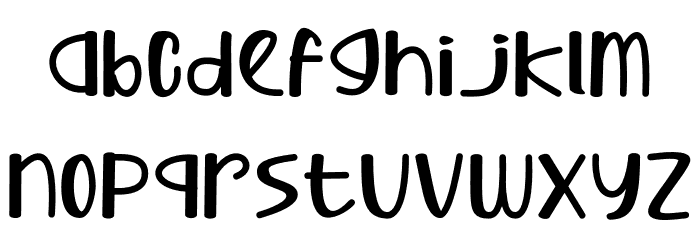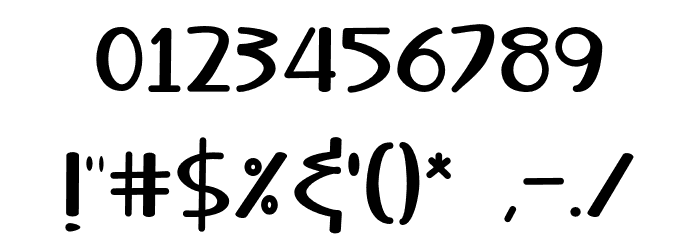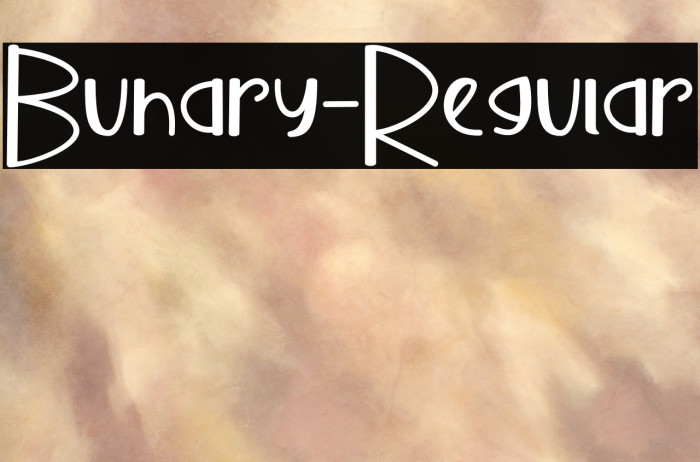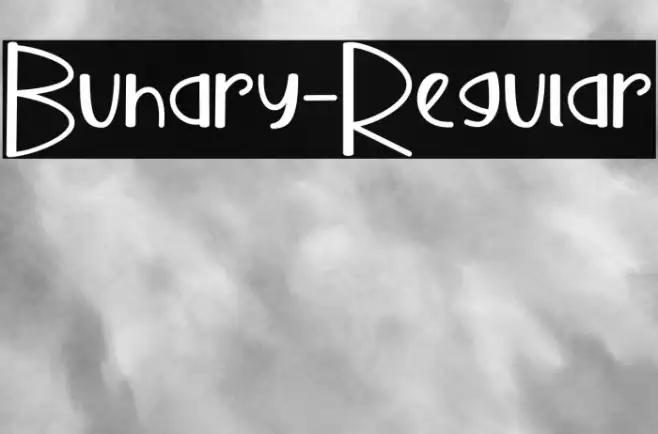
Buhary-Regular Font
This playful and whimsical font features a handwritten style with a unique blend of curves and straight lines. The uppercase letters are tall and narrow, while the lowercase letters have a more rounded and casual appearance. The numbers and special characters maintain the same playful aesthetic, making the font versatile for various creative projects. The overall design is informal and friendly, with a touch of artistic flair that adds personality to any text.
A playful, handwritten font with a whimsical and artistic style.
- Proposed Projects: Ideal for children's books, greeting cards, playful branding, and creative posters.
- Use Case: Headlines, Logos, Creative projects